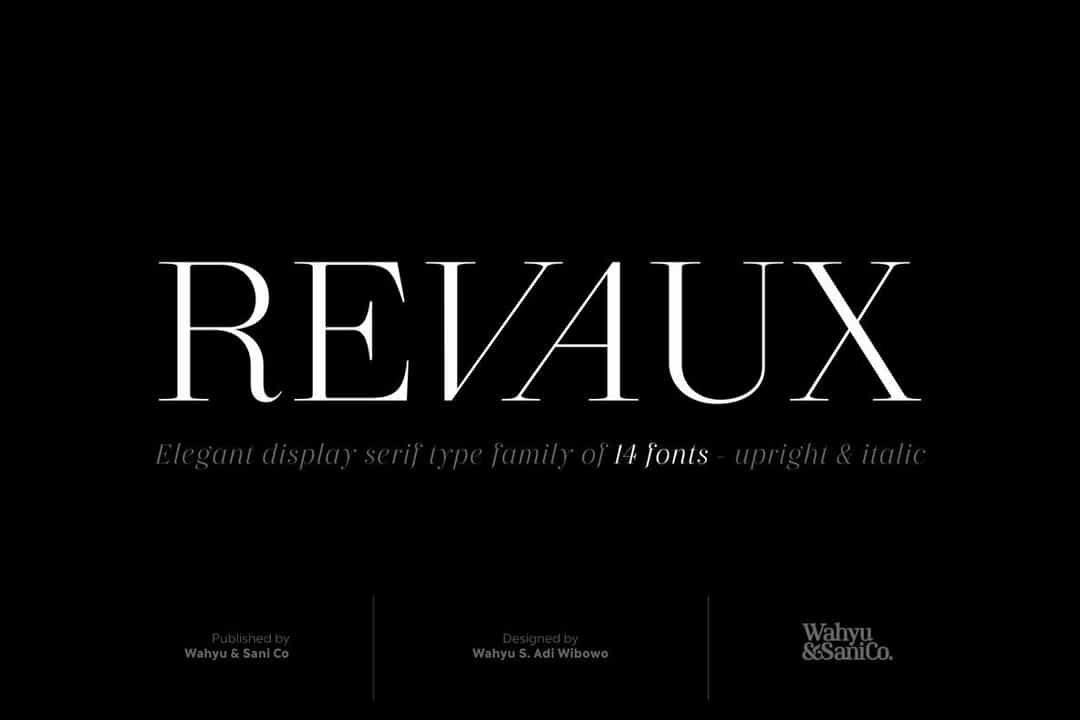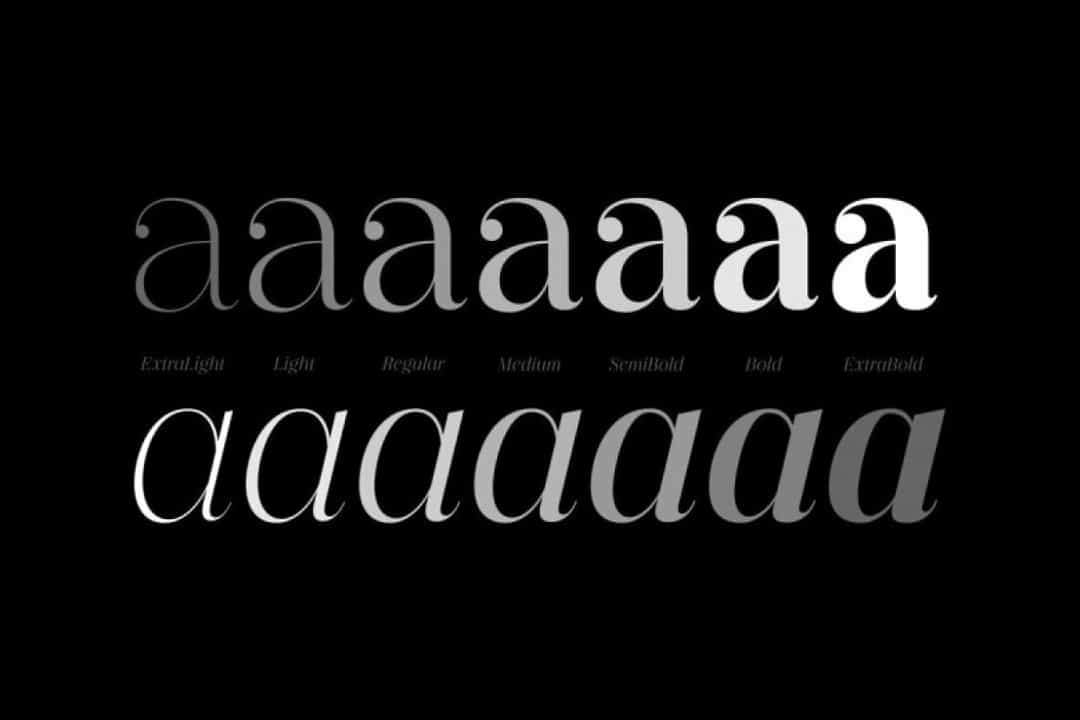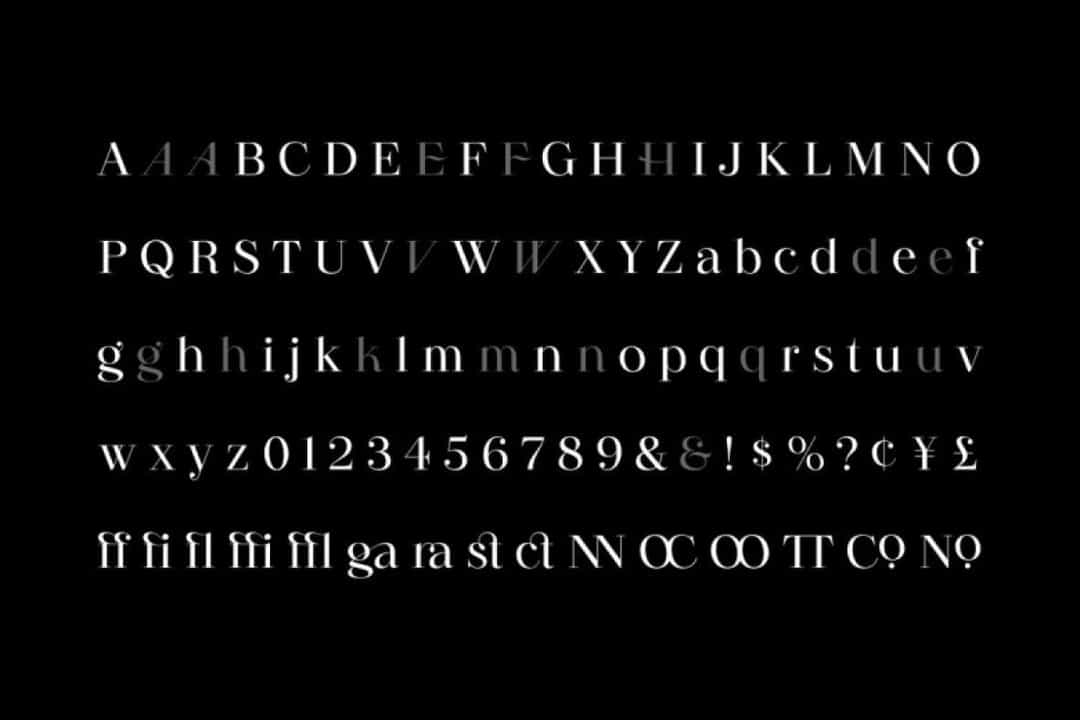
Revaux is a stylish display serif with ball terminals and counters with back-slanted angles, which is rare among typeface designs. Modern, Stylish and Elegant were key design considerations in creating Revaux. Revaux comprises 14 fonts in seven weights from extra Light to Extra Bold in both upright and italic styles.